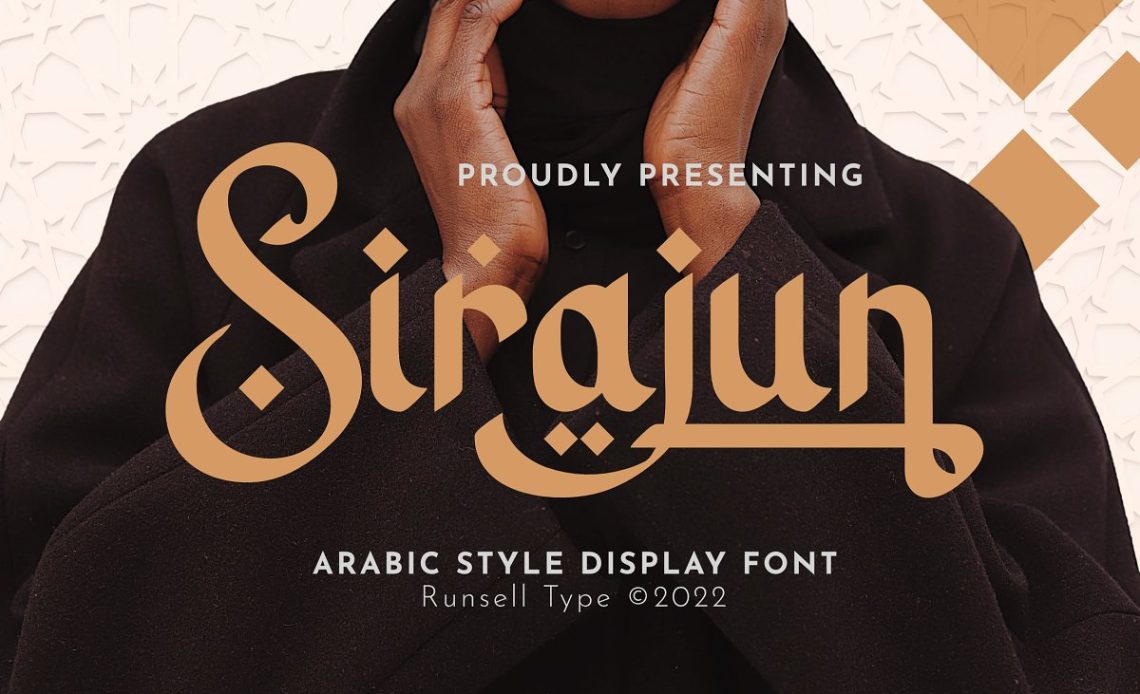
Introducing Sirajun, an Arabic Display Font that will take your creativity to new heights! Created by the talented Fitriyawan, this font is a must-have for anyone looking to add a touch of elegance and sophistication to their projects.
With its stunning features and versatility, Sirajun is the perfect choice for a wide range of design needs. Whether you're working on logos and branding, photography, invitations, watermarks, advertisements, product designs, stationery, wedding designs, labels, product packaging, or special events, this font has got you covered!
One of the standout features of Sirajun is its extensive character set. It offers both uppercase and lowercase letters, ensuring that you have all the creative freedom you need to make your designs truly unique. Additionally, it includes numerals and punctuation marks, allowing you to add the perfect finishing touches to your typography.
Not only does Sirajun support Arabic, but it also offers multilingual support, making it accessible to a global audience. Whether you're targeting local or international markets, this font will enable you to reach out to diverse audiences, breaking through language barriers effortlessly.
But that's not all – Sirajun comes with opentype features that add an extra layer of creativity to your designs. These features allow you to experiment with ligatures, alternate characters, and swashes, giving your typography a stunning and handcrafted feel.